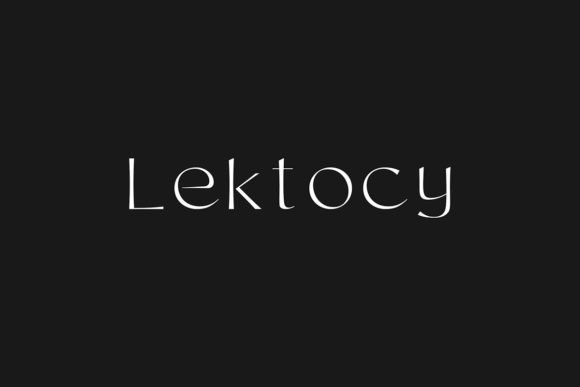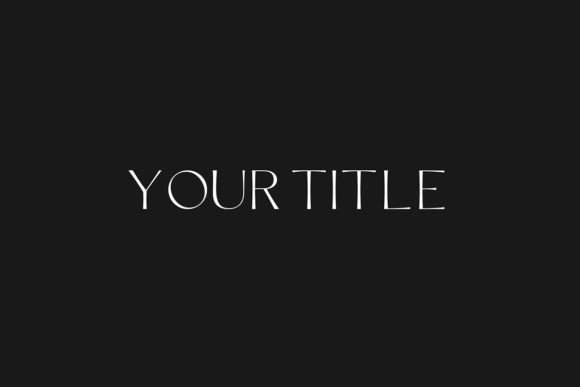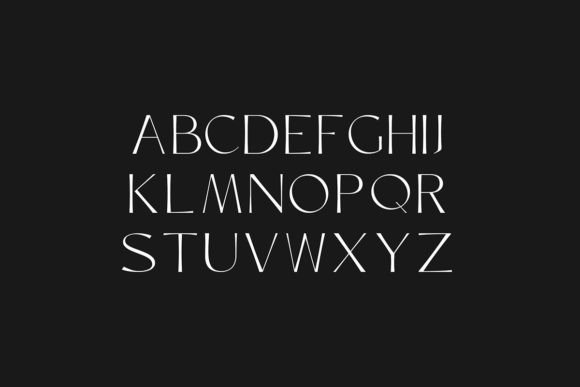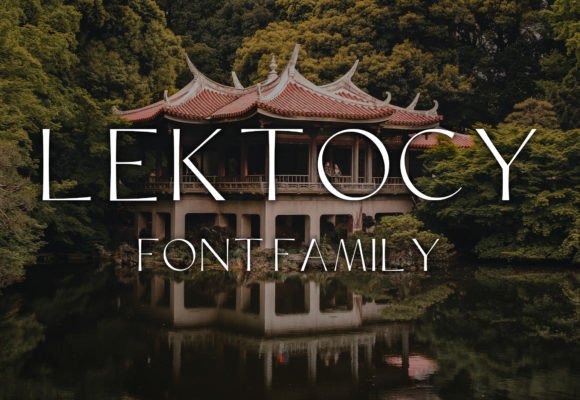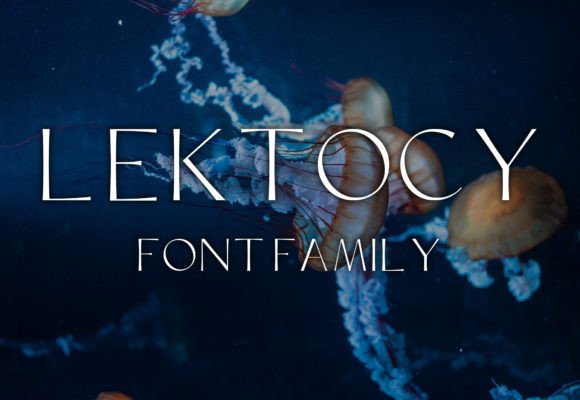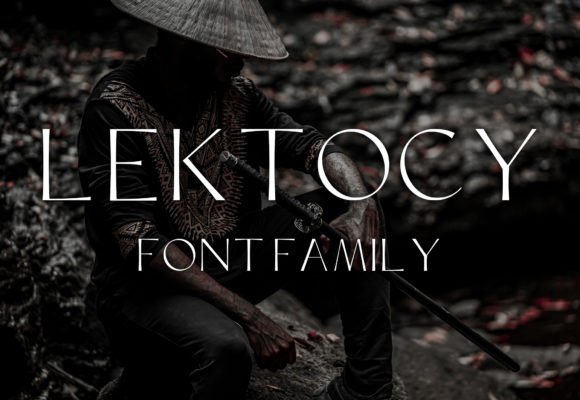
Introduction to Lektocy Font
Lektocy is a simple and neat sans serif font.
Incredibly versatile, this font is perfect for a wide range of design ideas .